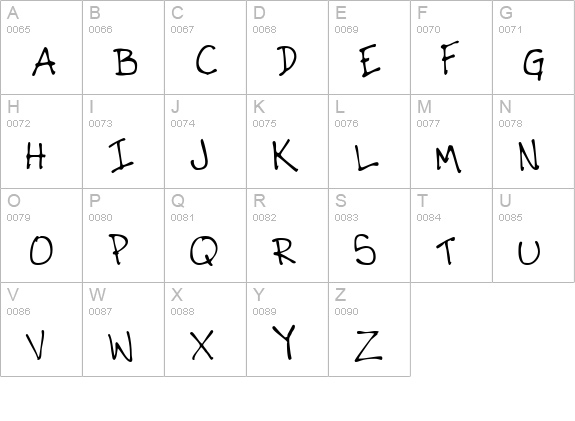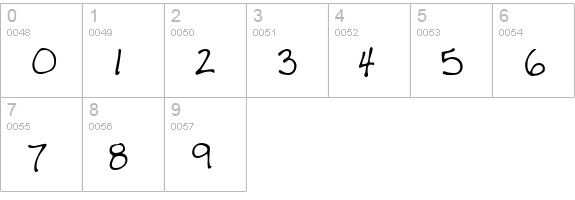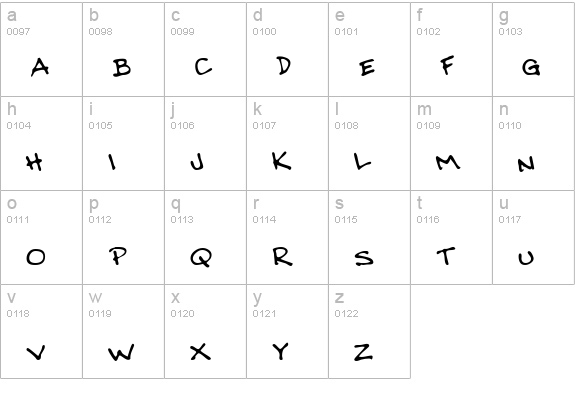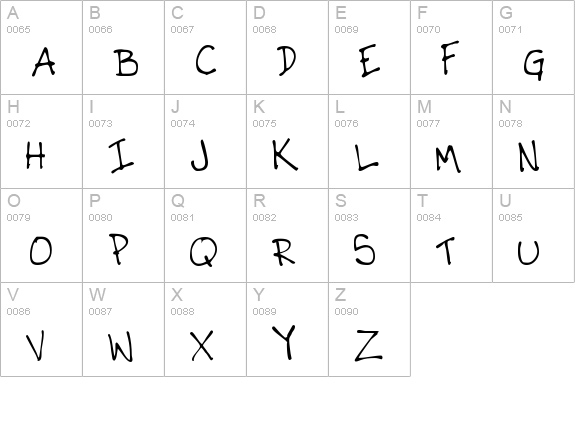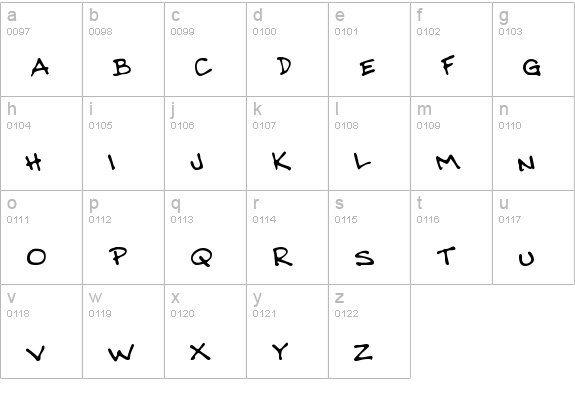
CrosbysHand Font Details
CrosbysHand font is a charming and whimsical typeface that exudes a sense of creativity and uniqueness. With its elegant curves and playful strokes, this font is perfect for adding a touch of personality to any project. Whether you're designing a greeting card, poster, or logo, CrosbysHand font will surely make your text stand out. The best part about CrosbysHand font is that it is completely free to download at FontsMarket.com. That's right, you can add this beautiful font to your collection at no cost at all. Don't miss out on the opportunity to enhance your designs with CrosbysHand font – download it today and let your creativity soar!